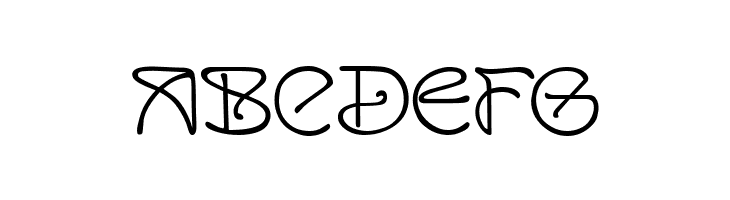
Gentleman Caller Expanded Italic Font
- Font: Gentleman Caller Expanded Italic
- Weight: Expanded Italic
An ornate and decorative font with artistic curves and flourishes.